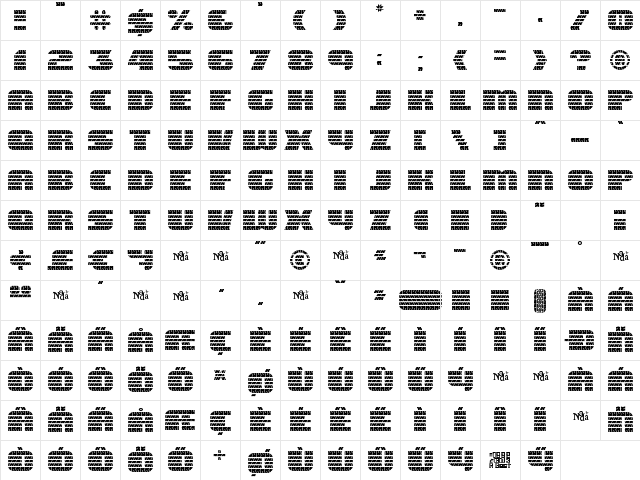
Eagle GT II Regular Free Font
Eagle GT II Regular
Eagle GT II Family
Complete Eagle GT II Regular glyph index. Displaying only characters natively supported by Eagle GT II Regular font.
Design Context for Eagle GT II
Eagle GT II is a composed and adaptable typeface that performs quietly and consistently across a wide range of design contexts.